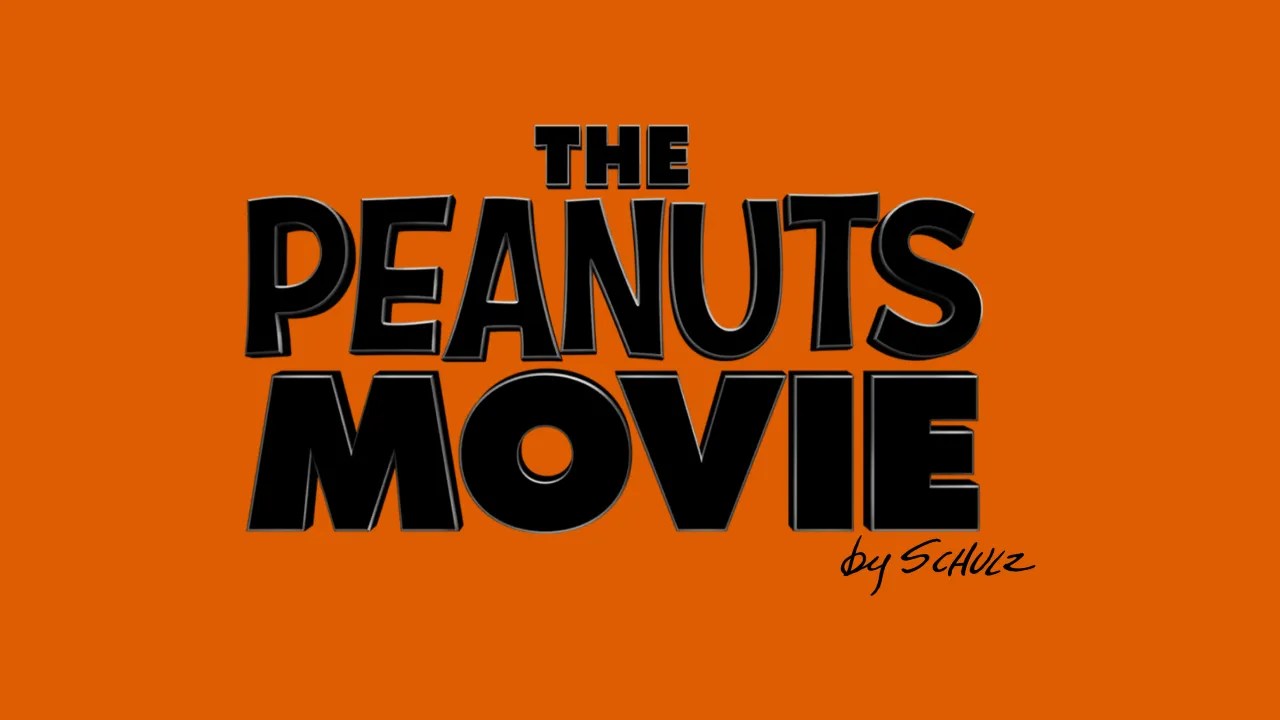
Peanuts Movie Font . Every font is free to download! Looking for peanuts movies fonts? Could anyone tell me the name of this font for the peanuts 2015 movie logo???? Download the peanuts movie font font free on fontbolt. Click to find the best 1 free fonts in the peanuts movies style. Click to find the best 3 free fonts in the peanuts style. The lettering is very similar to a font named snoopy. The film title in the poster features “peanuts” in comic lettering, which was created by blambot for charles shultz creative associates. Try the best the peanuts movie font generator & convert your text into images with. I am dying to know!!! Every font is free to download! It's called snoopy and it's a custom font created by blambot.com for charles shultz creative associates.
Every font is free to download! It's called snoopy and it's a custom font created by blambot.com for charles shultz creative associates. I am dying to know!!! Click to find the best 3 free fonts in the peanuts style. Every font is free to download! Could anyone tell me the name of this font for the peanuts 2015 movie logo???? The lettering is very similar to a font named snoopy. Download the peanuts movie font font free on fontbolt. Looking for peanuts movies fonts? The film title in the poster features “peanuts” in comic lettering, which was created by blambot for charles shultz creative associates.
Peanuts Movie Font Click to find the best 1 free fonts in the peanuts movies style. I am dying to know!!! Click to find the best 1 free fonts in the peanuts movies style. The lettering is very similar to a font named snoopy. Every font is free to download! Looking for peanuts movies fonts? Try the best the peanuts movie font generator & convert your text into images with. Download the peanuts movie font font free on fontbolt. Every font is free to download! Could anyone tell me the name of this font for the peanuts 2015 movie logo???? Click to find the best 3 free fonts in the peanuts style. The film title in the poster features “peanuts” in comic lettering, which was created by blambot for charles shultz creative associates. It's called snoopy and it's a custom font created by blambot.com for charles shultz creative associates.
Peanuts Font Peanuts Svg Peanuts Font Svg Peanuts Alphabet Etsy Peanuts Movie Font Click to find the best 3 free fonts in the peanuts style. It's called snoopy and it's a custom font created by blambot.com for charles shultz creative associates. Every font is free to download! I am dying to know!!! The film title in the poster features “peanuts” in comic lettering, which was created by blambot for charles shultz creative associates.. Peanuts Movie Font.
Peanuts Movie Font Download Fontsbear Peanuts Movie Font It's called snoopy and it's a custom font created by blambot.com for charles shultz creative associates. Click to find the best 3 free fonts in the peanuts style. Every font is free to download! Click to find the best 1 free fonts in the peanuts movies style. Looking for peanuts movies fonts? The lettering is very similar to a font. Peanuts Movie Font.
The Peanuts Movie (Fan Made Poster) by JustSomePainter11 on DeviantArt Peanuts Movie Font Looking for peanuts movies fonts? Download the peanuts movie font font free on fontbolt. Every font is free to download! Click to find the best 1 free fonts in the peanuts movies style. Try the best the peanuts movie font generator & convert your text into images with. The film title in the poster features “peanuts” in comic lettering, which. Peanuts Movie Font.